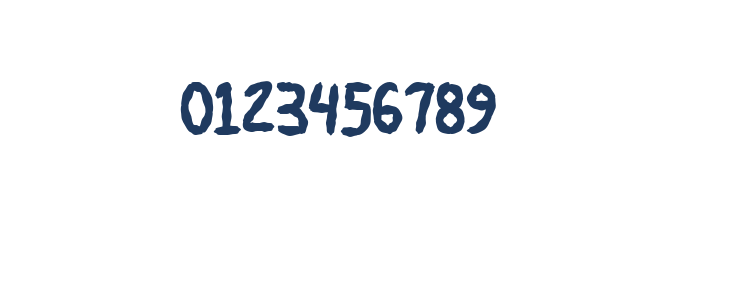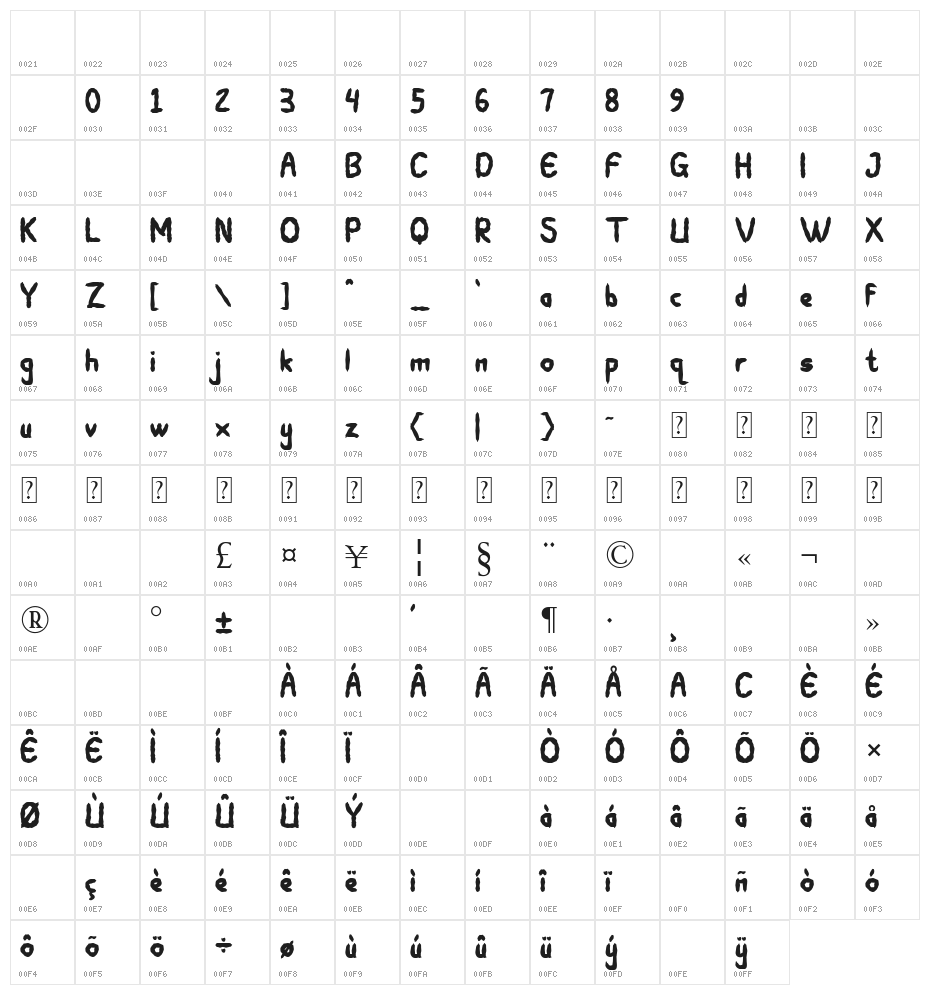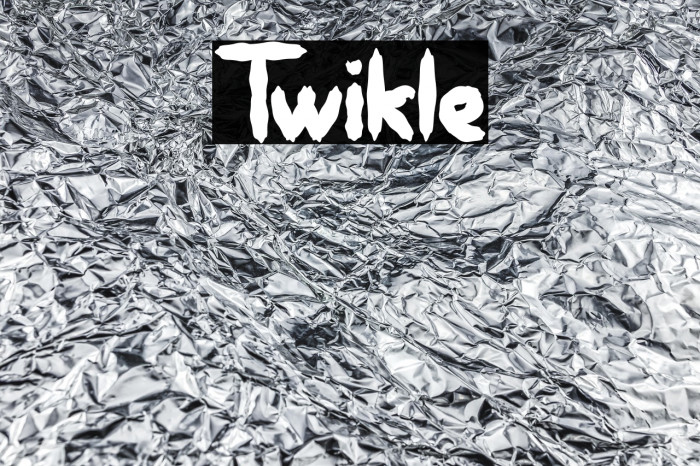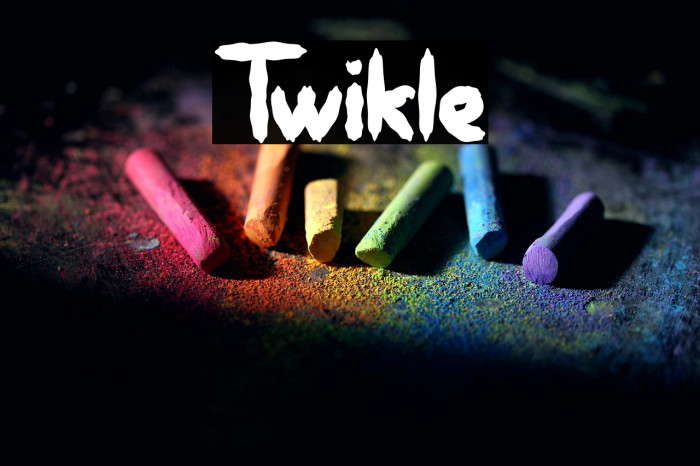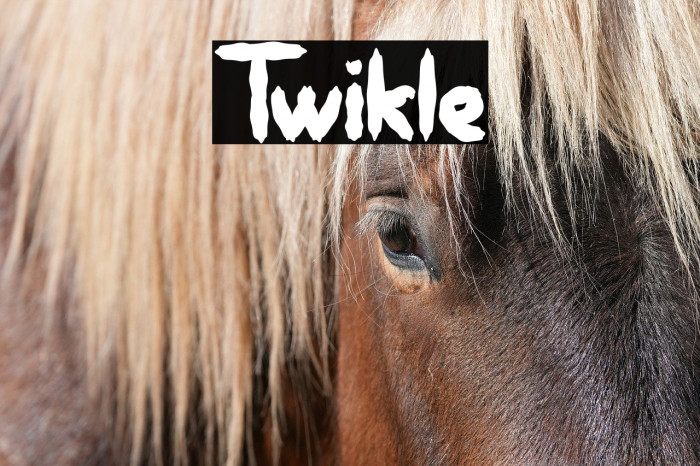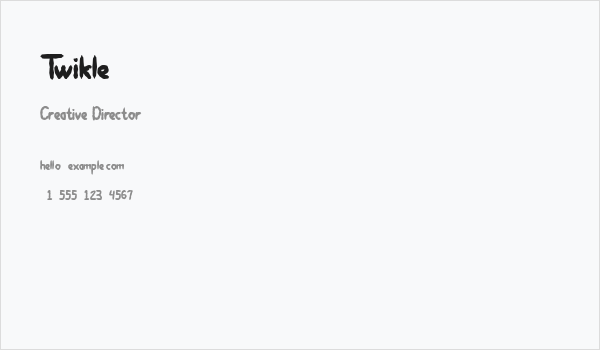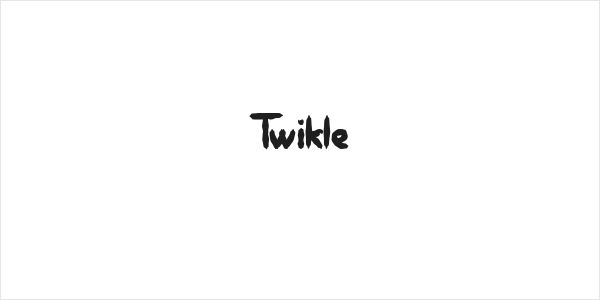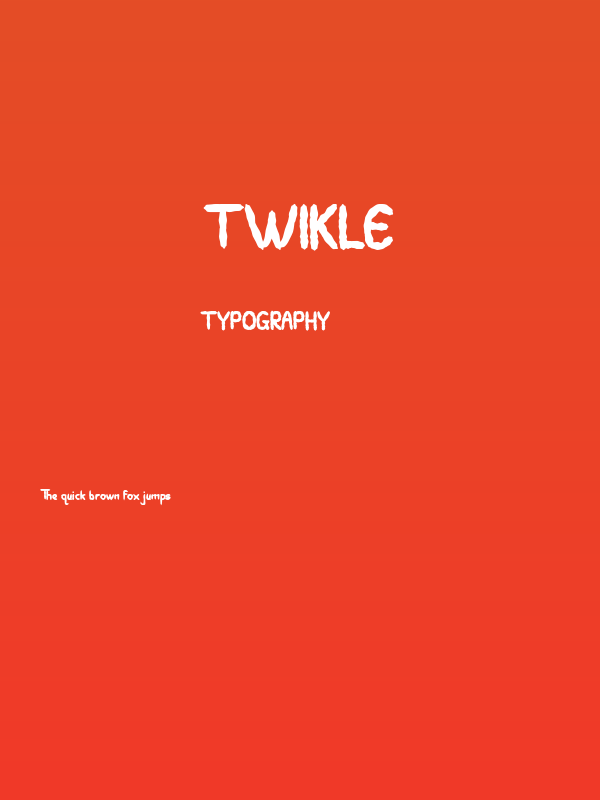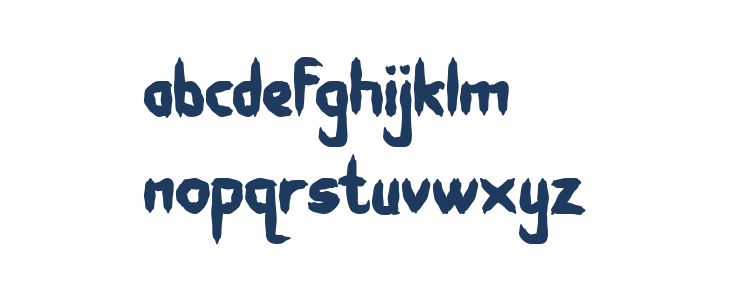
Twikle Font
Twikle Description
This font features a bold and rugged appearance, with strokes that appear hand-drawn and slightly irregular, giving it a natural and organic feel. The characters are thick and substantial, with a playful yet assertive style. The uppercase and lowercase letters maintain a consistent design, while the numbers and special characters complement the overall aesthetic. The font's unique texture and uneven edges contribute to its distinctive character, making it stand out in any design. Its boldness and artistic flair make it suitable for projects that require a strong visual impact.